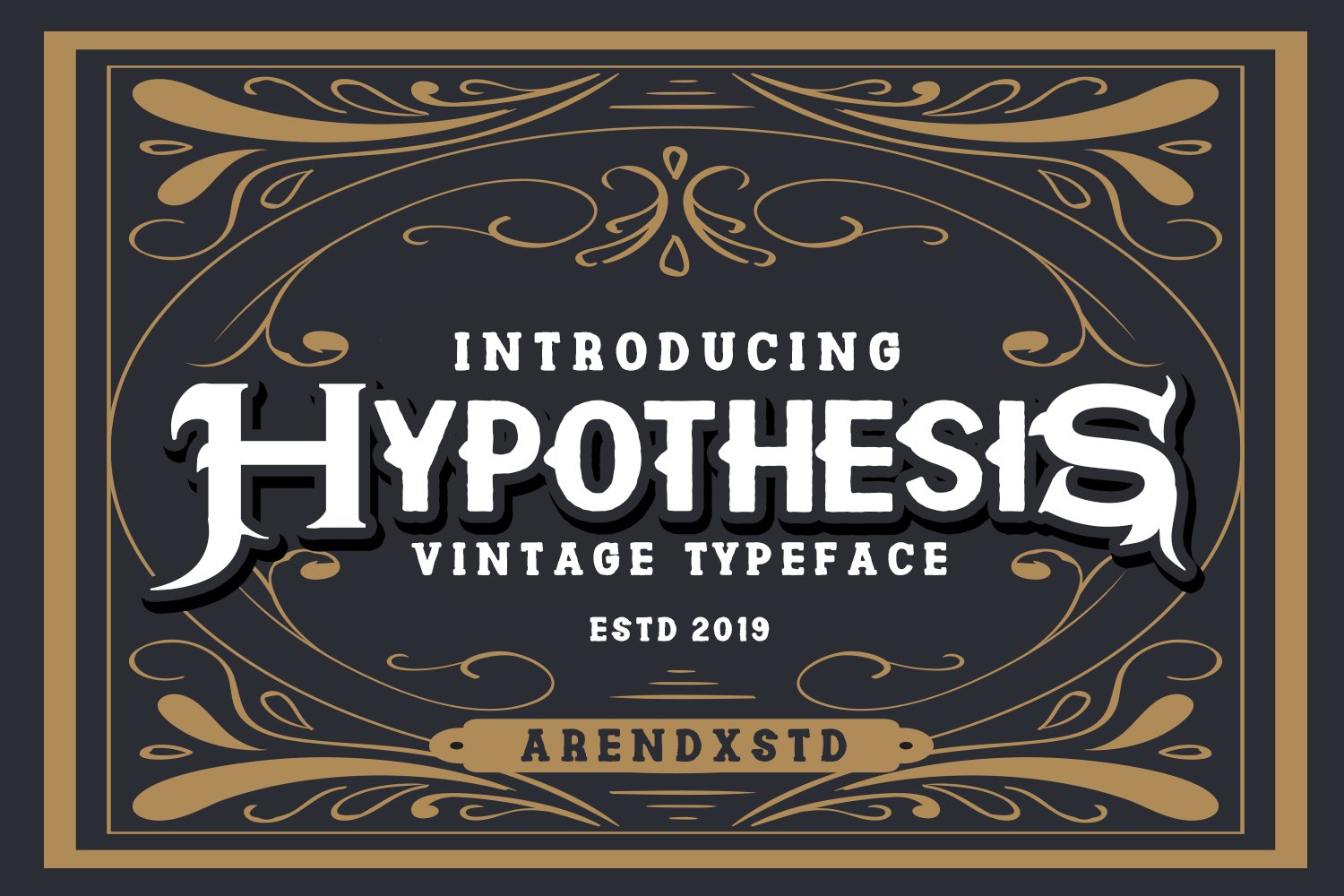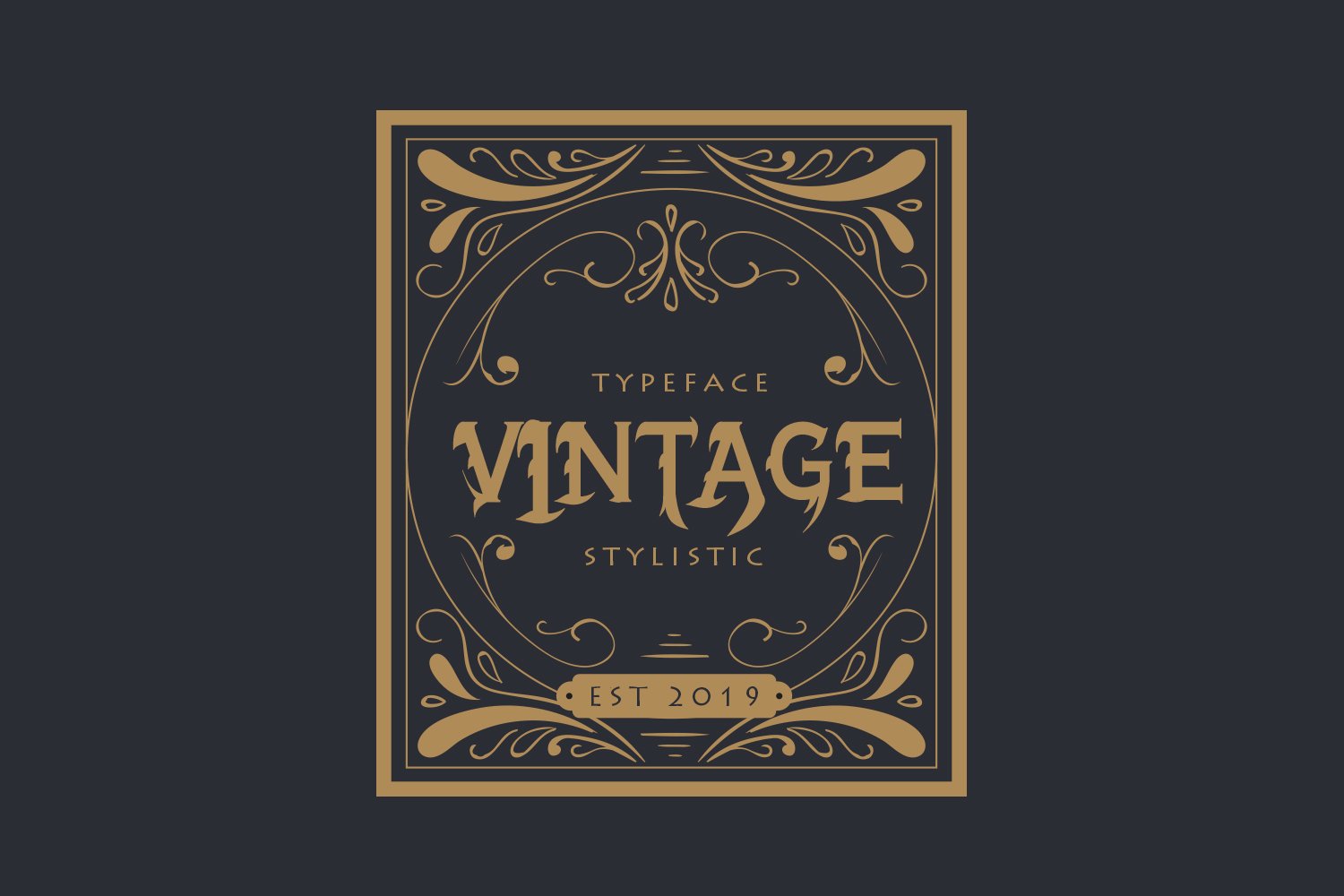
Hypothesis - Free Display Font
Featuring a free display font Hypothesis. This is a downloadable free font file brought to you by arendxstd. You can create professional designs with this fancy font.